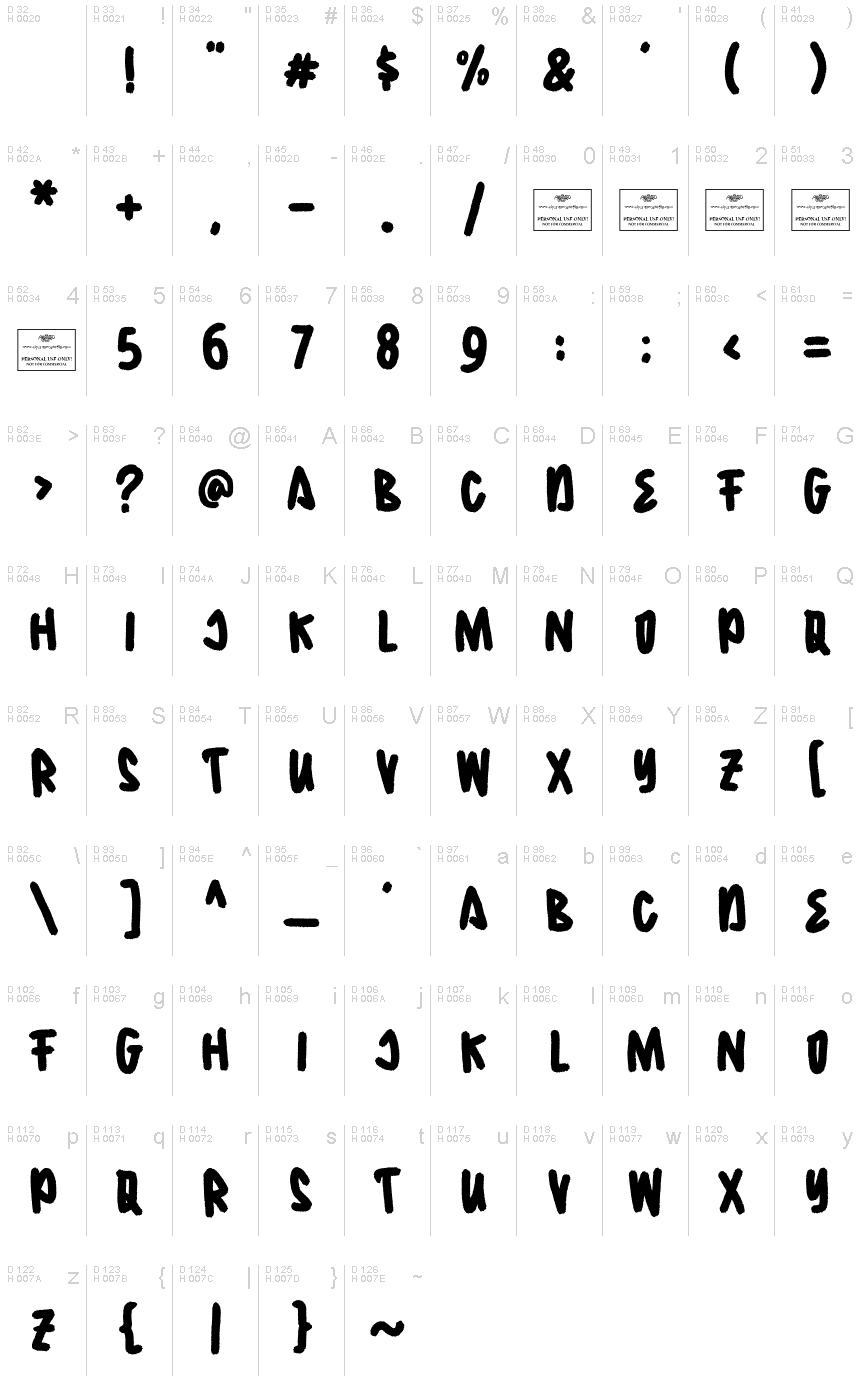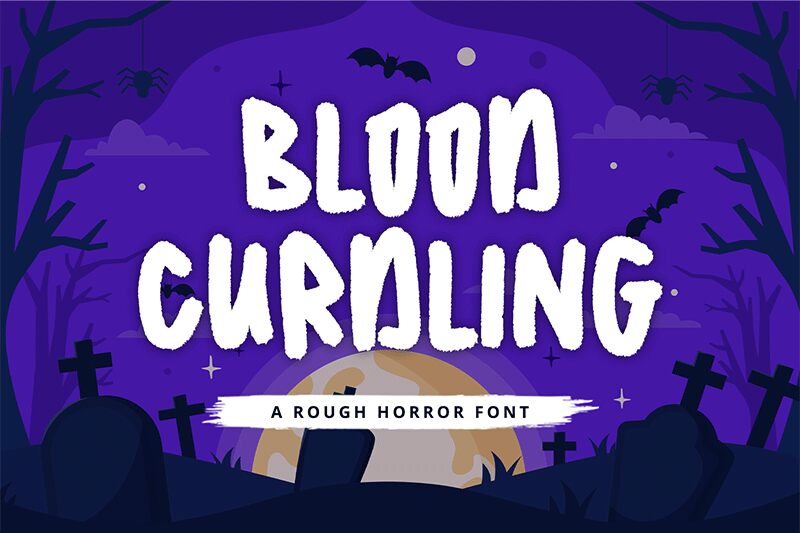
Bloodcurdling
Bloodcurdling, designed by Alpaprana Studio, is a display font that will send shivers down your spine.
With its semi-bold weight and condensed width, this font exudes an eerie atmosphere perfect for horror movie posters, haunted house flyers, and Halloween-themed websites. Its rough and script-like appearance adds an extra touch of macabre to any project.
Whether you're creating spooky invitations or designing chilling book covers, Bloodcurdling will give your designs a bone-chilling edge that will leave a lasting impression on your audience.